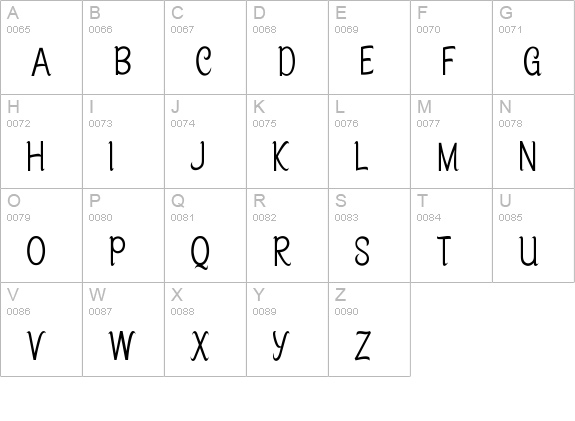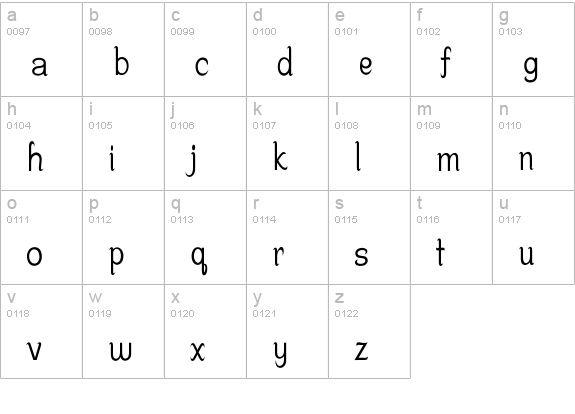
Centime font is a versatile and modern typeface that exudes elegance and sophistication. With its clean lines and graceful curves, Centime is perfect for a wide range of design projects, from branding to editorial layouts. This sleek font offers a harmonious balance between readability and style, making it a popular choice among designers and creatives. What makes Centime font even more appealing is that it is available for free download at FontsMarket.com. This means that you can easily access this beautiful typeface without any cost, allowing you to enhance your designs with a touch of class and professionalism. Whether you're working on a logo, website, or marketing materials, Centime font is sure to elevate your project to the next level. Download it now and see for yourself the impact this elegant font can have on your work.